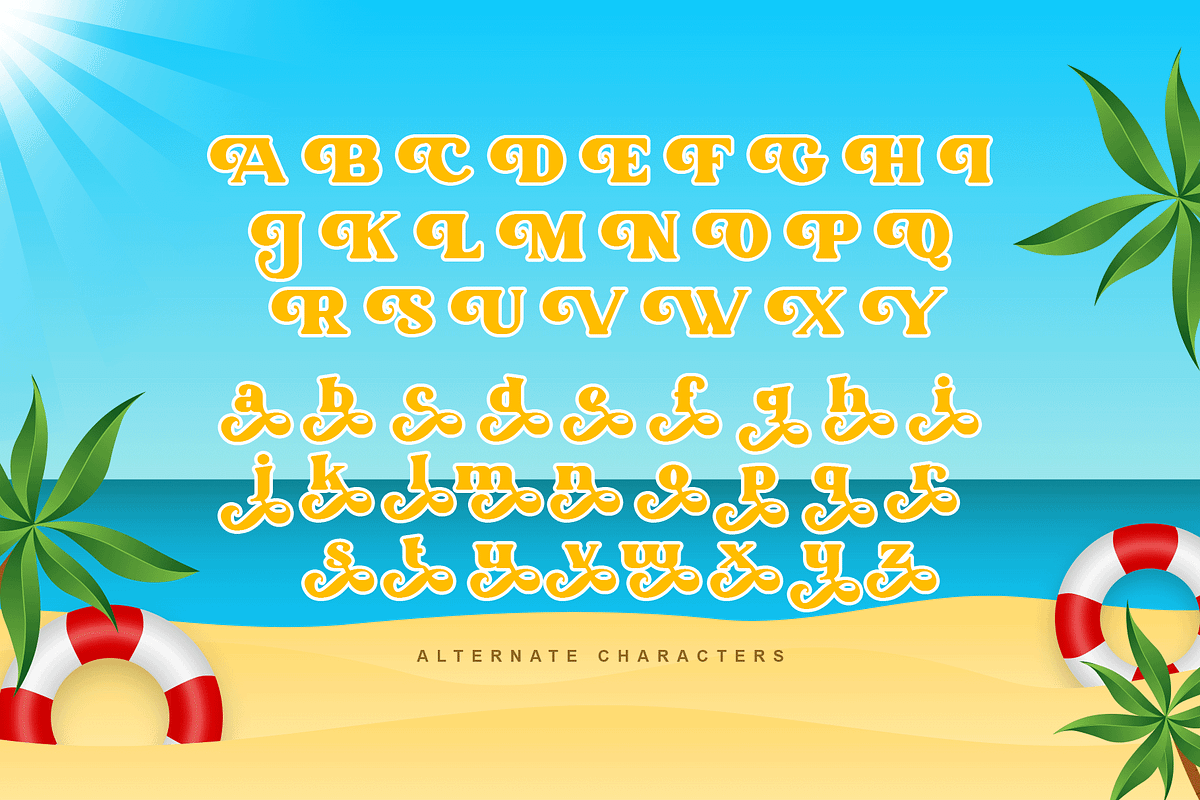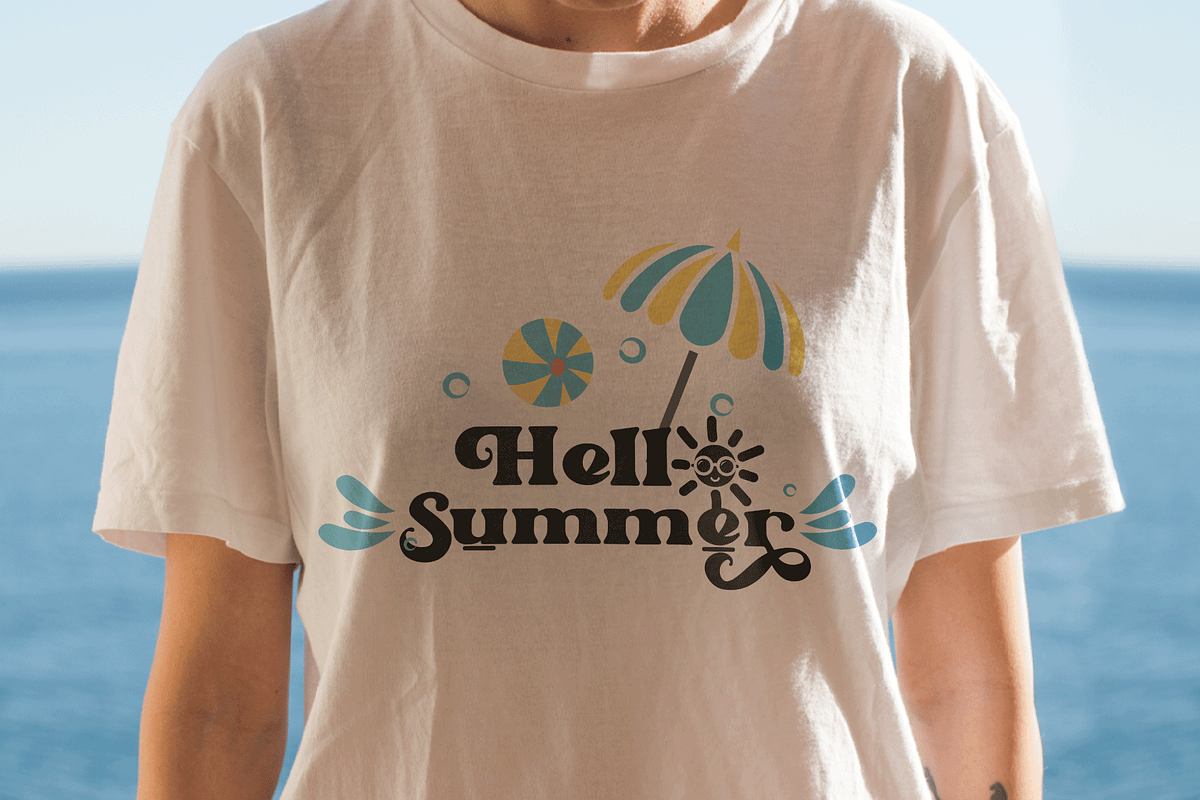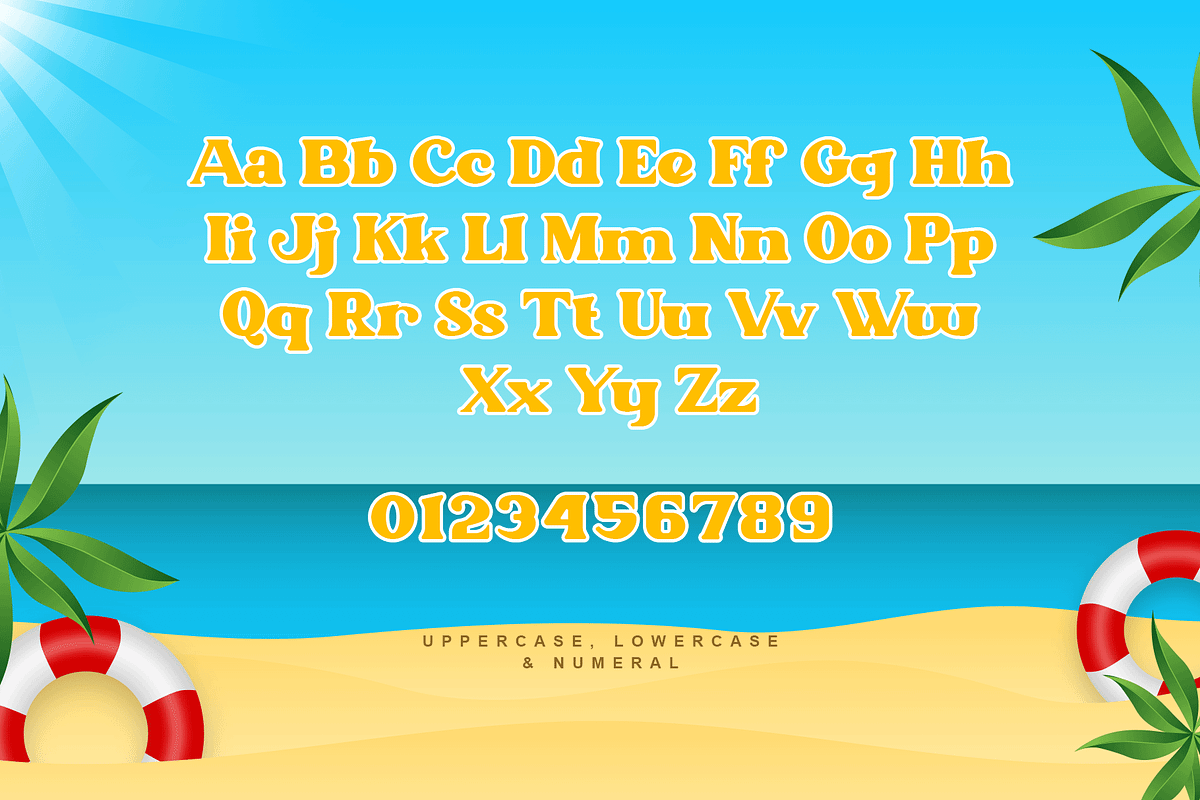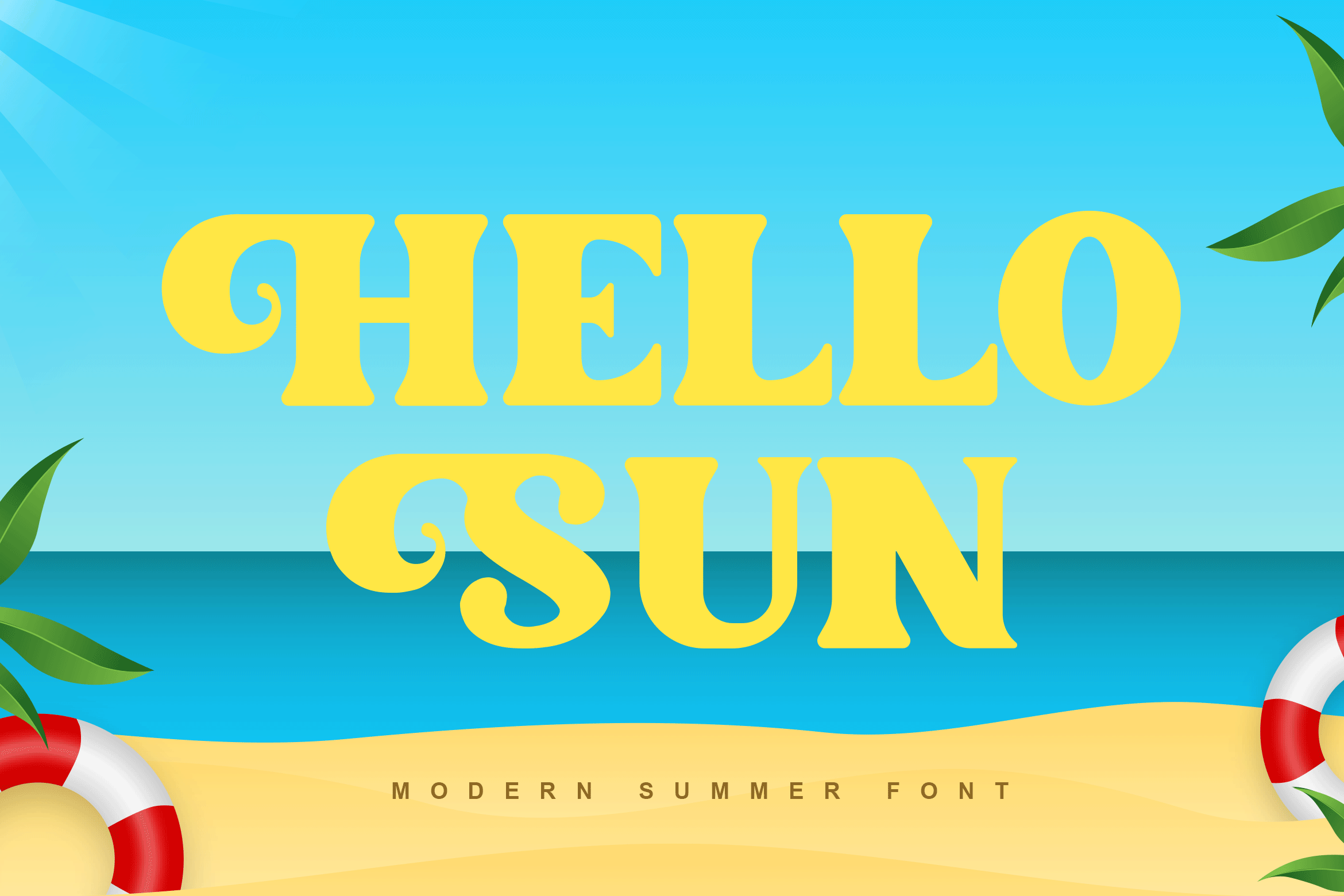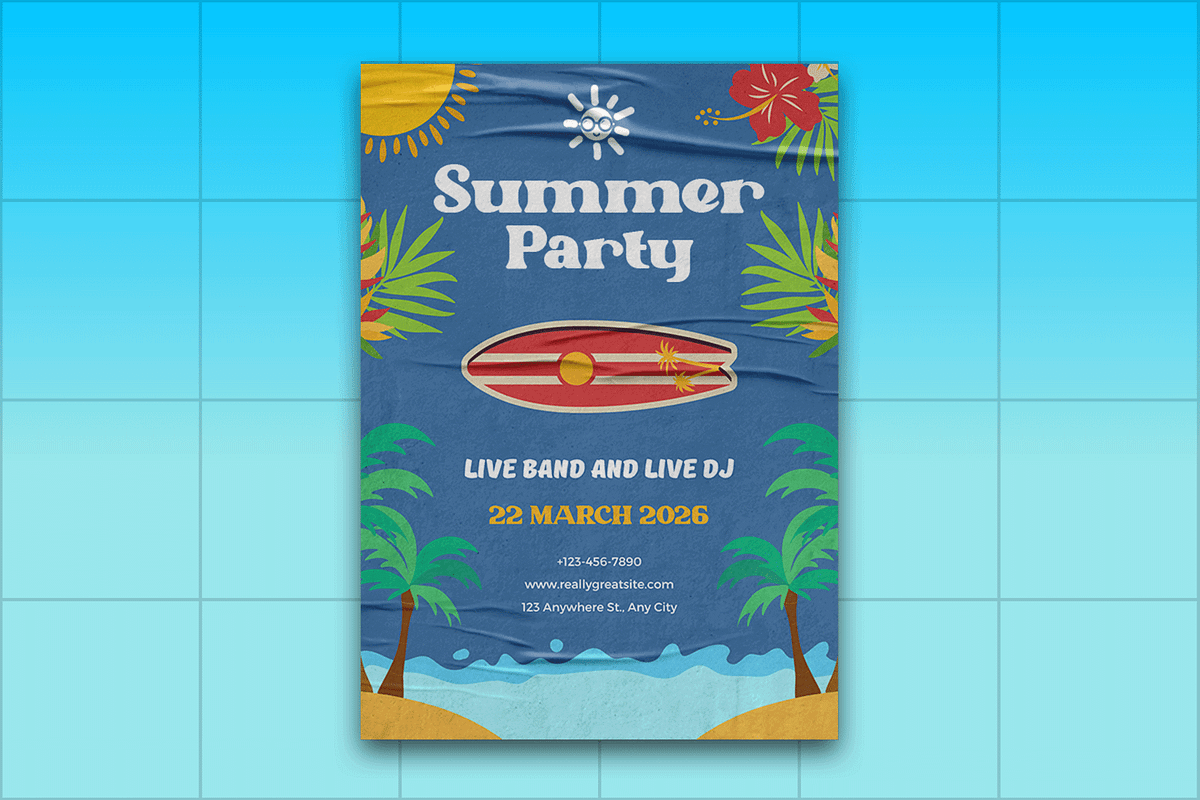
Hello Sun - A Modern Summer Font
Hello Sun is a vibrant and cheerful summer font designed to bring warmth and energy to your design projects. With its playful shapes and lively letterforms, Hello Sun is perfect for summer event posters, beach party invitations, holiday branding, and fun merchandise. This font captures the essence of summer, adding a sense of joy and sunshine to your work.
Crafted with creativity, Hello Sun features unique characters that offer excellent readability and visual appeal. Its dynamic design makes it ideal for headlines and display text, providing a bright and engaging presence. The font’s versatility allows it to adapt seamlessly to various design contexts, from digital screens to printed materials, making it a valuable asset for any designer aiming to create fun and vibrant visuals.
Embrace the joy of summer with Hello Sun, a font that brings the spirit of the season to life. Its playful style and adaptability make it an essential addition to any designer’s toolkit for crafting delightful and captivating projects. Bring your designs to life with Hello Sun and let the summer fun begin!